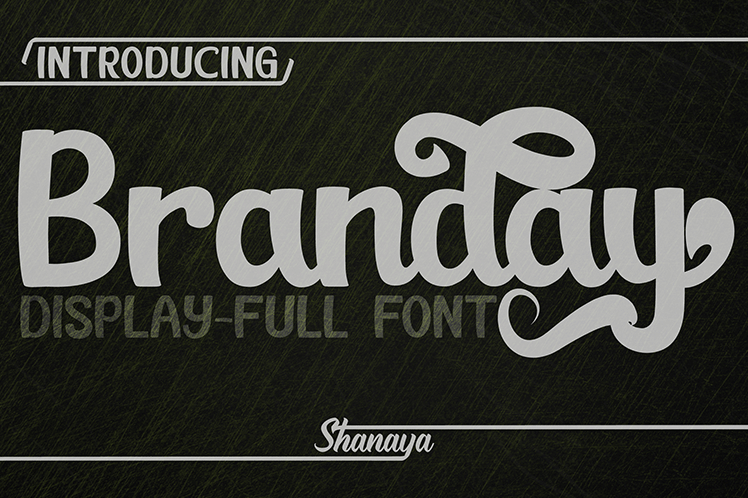
Preview and download Branday Font. Created by Shanaya Studio in Script Various styles with Free for personal use license.
if you want to send a donation, please send it to: https://paypal.me/wahysapt If you want to buy this item, please visit: https://fontbundles.net/shanaya Branday Font. This font is great for logos, posters, clothing, branding, party invitations, and many other cool design projects. Branday comes with a looot of alternate characters. Branday Font: -Branday Script (TTF / OTF) -Add more style to each font with OpenType Features - stylistic alternates, lowercase initial form and final form, ligatures, stylistic sets. The Branday is a PUA encoded font - it may be used in almost any program by using your Operating System's utilities (Character Map for Windows and Font Book for Mac.), As well as Illustrator, Photoshop CC 2017 and several other applications. We hope you enjoy with this font. If you have any questions please don't hesitate to drop me a message :) Thank you Shanaya |